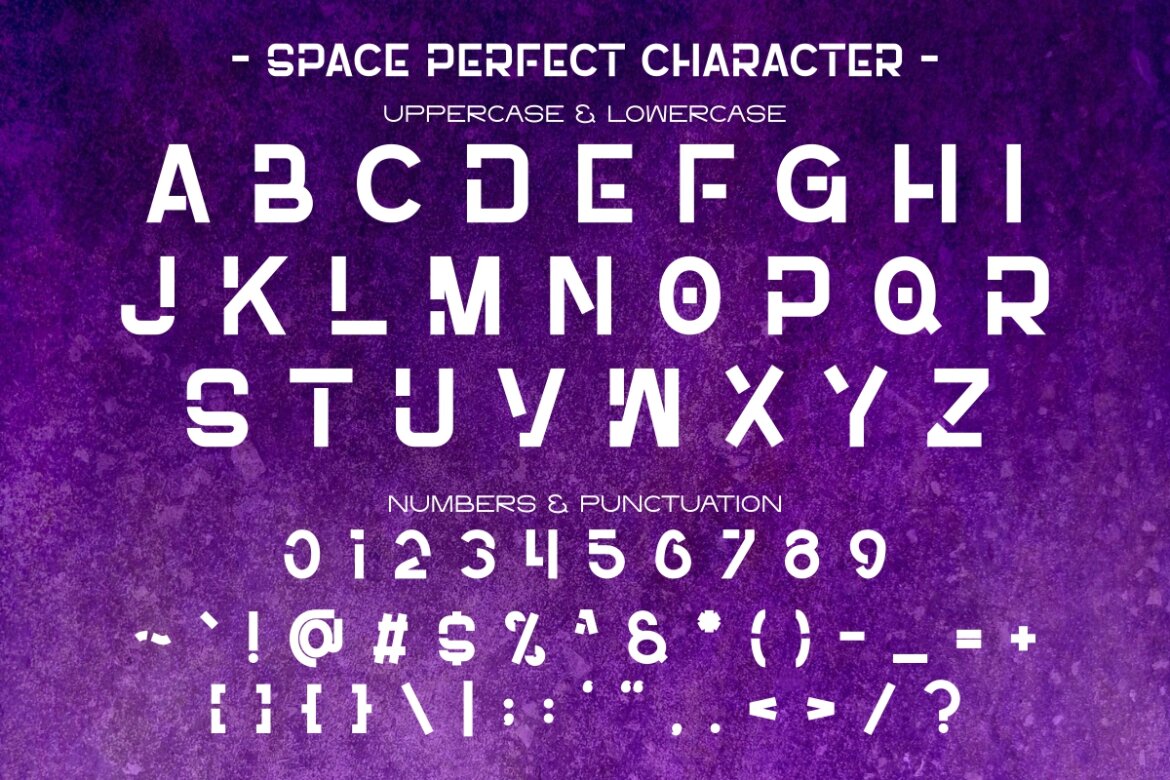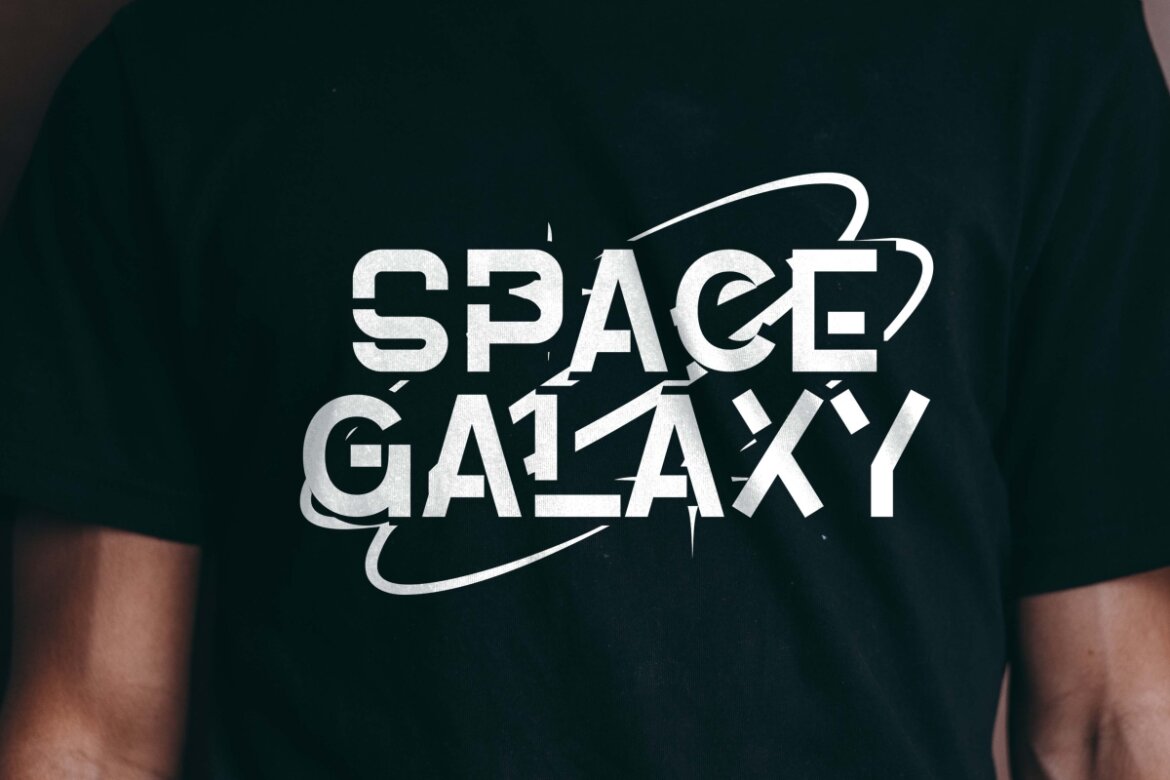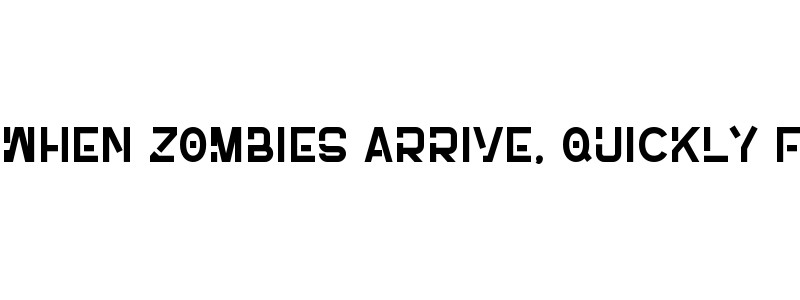
Space Perfect - FREE Futuristic Font
Space Perfect
Introducing Space Perfect — a modern futuristic typeface designed for visionary creators. Its bold, geometric letterforms and sleek sci-fi aesthetics make it perfect for digital interfaces, branding, posters, and tech-themed visuals. Inspired by the beauty of space and the future of design, Space Perfect delivers a clean yet powerful typographic presence for your creative projects. ✨ Ideal for: sci-fi posters, gaming titles, tech branding, digital design, and modern logos.